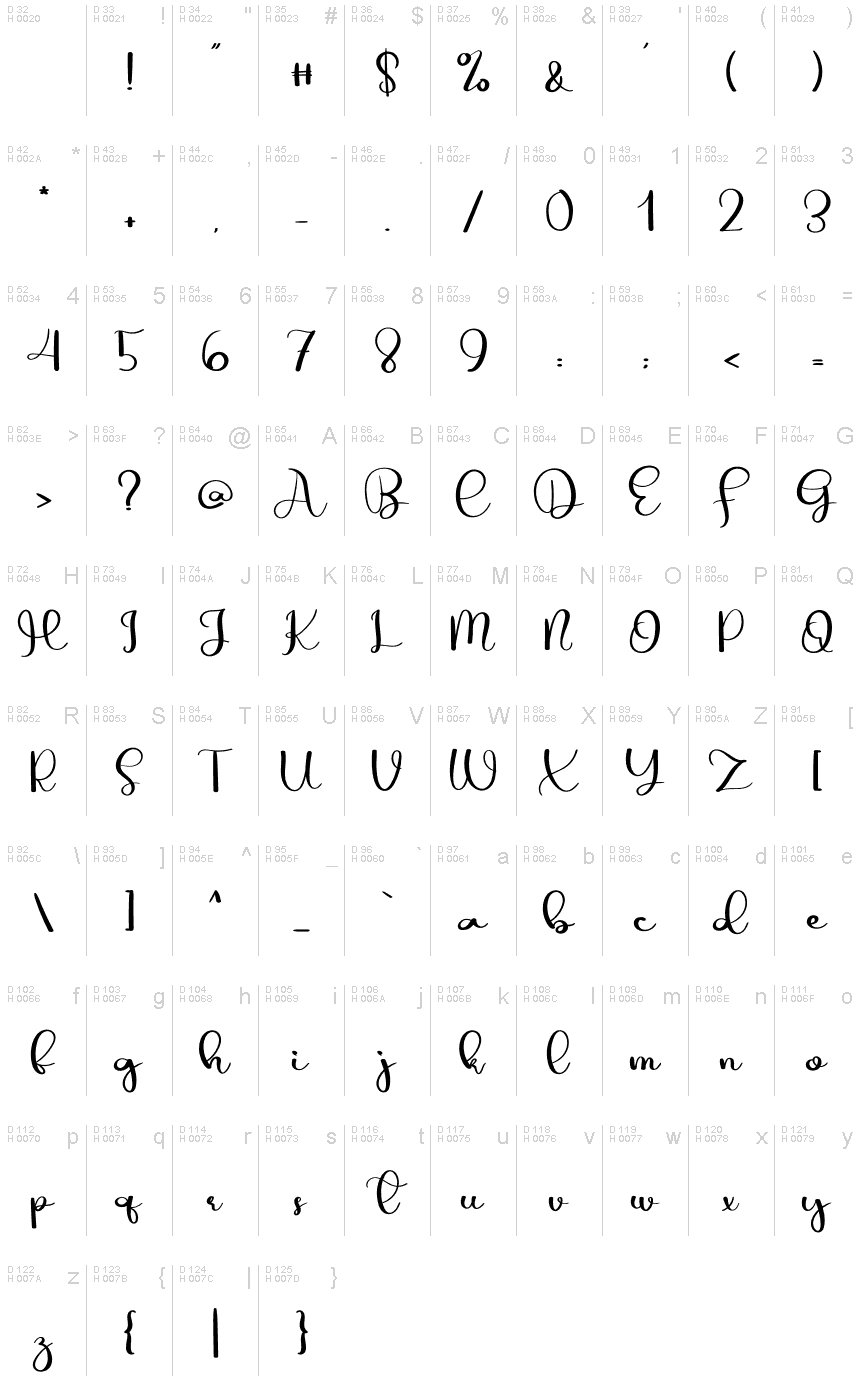
Winter Christmas
Winter Christmas is a sweet and cursive handwritten font designed by Luluk Surotul. This gentle font will look gorgeous on a variety of design ideas. It will add a joyful and romantic touch to each of your projects!